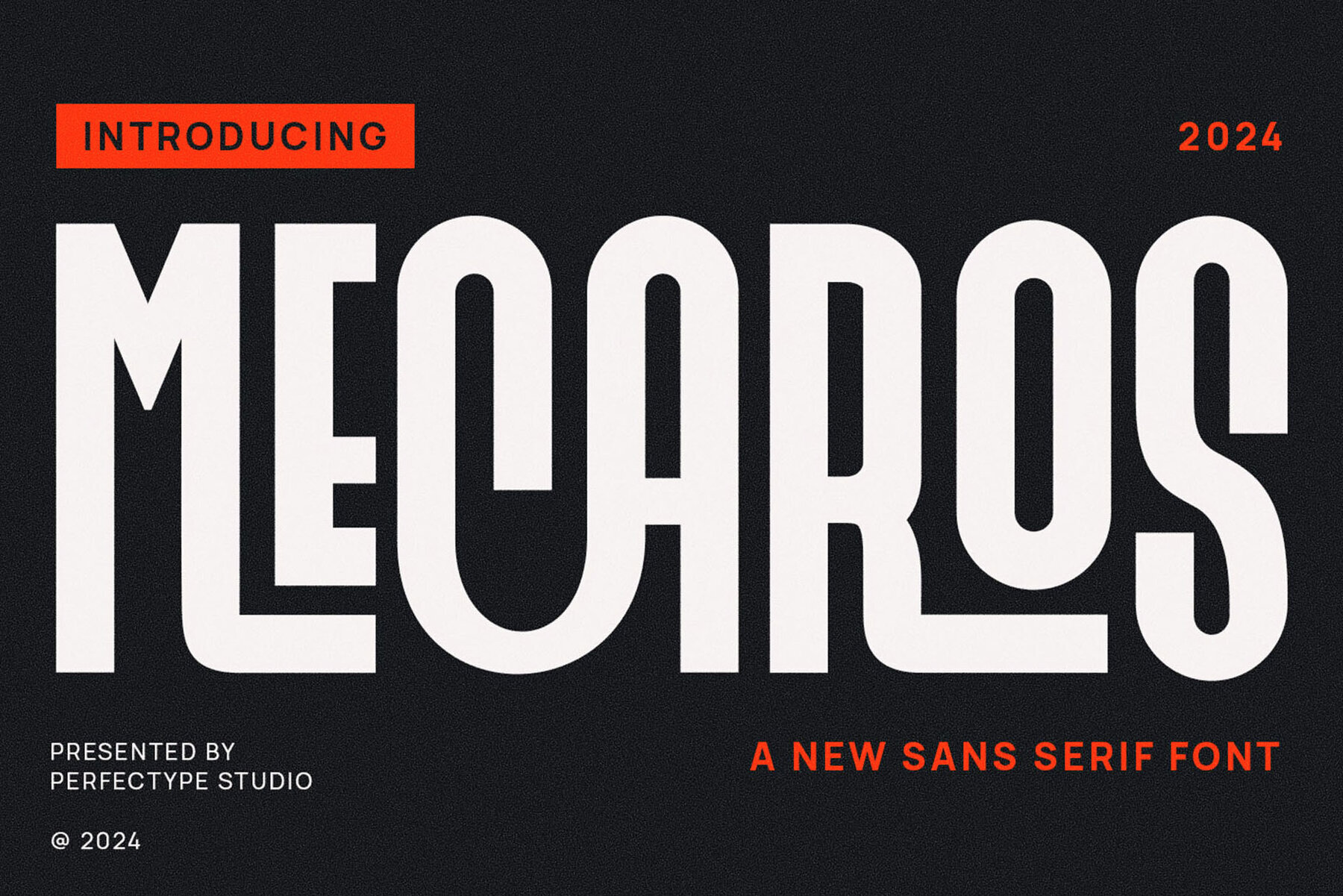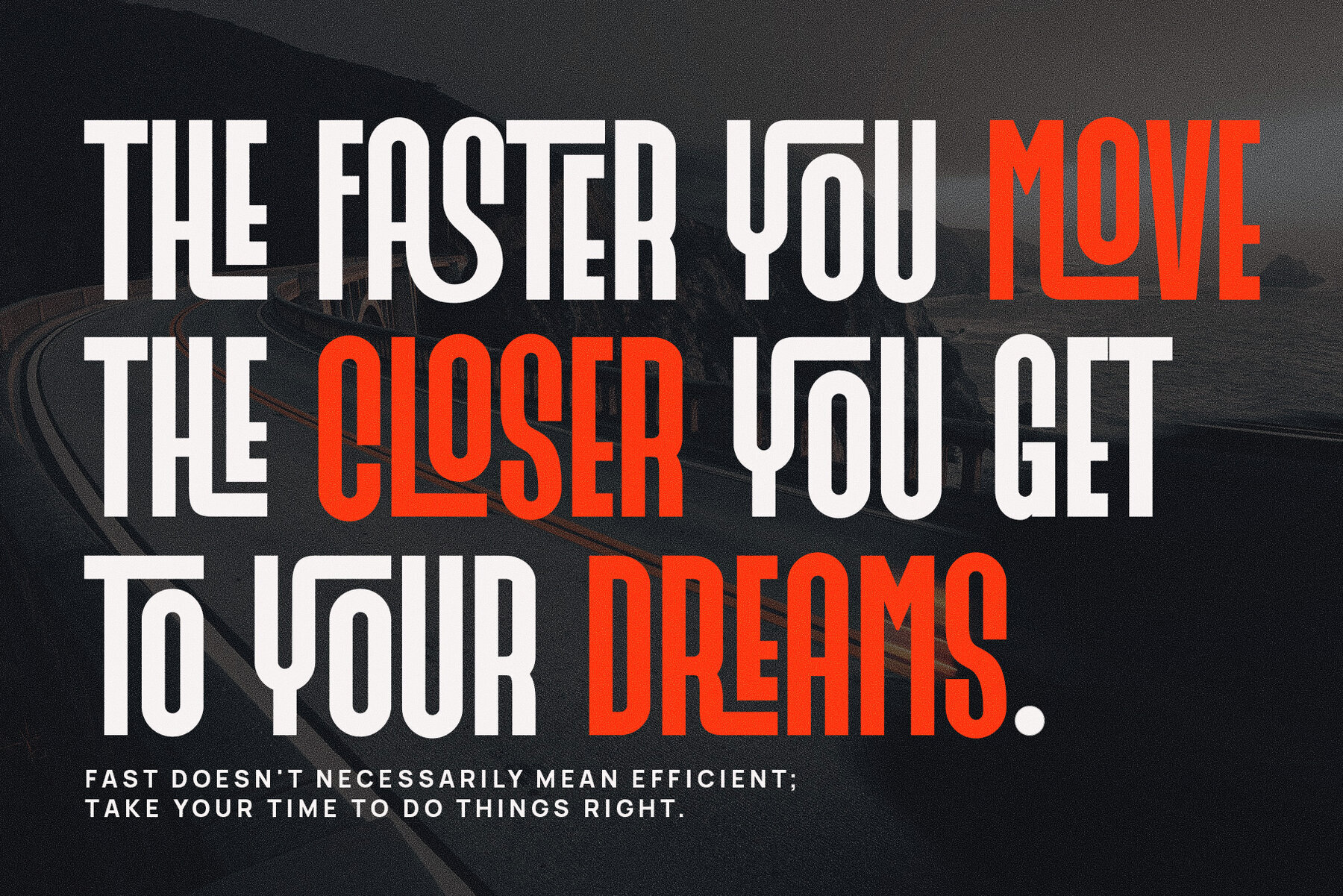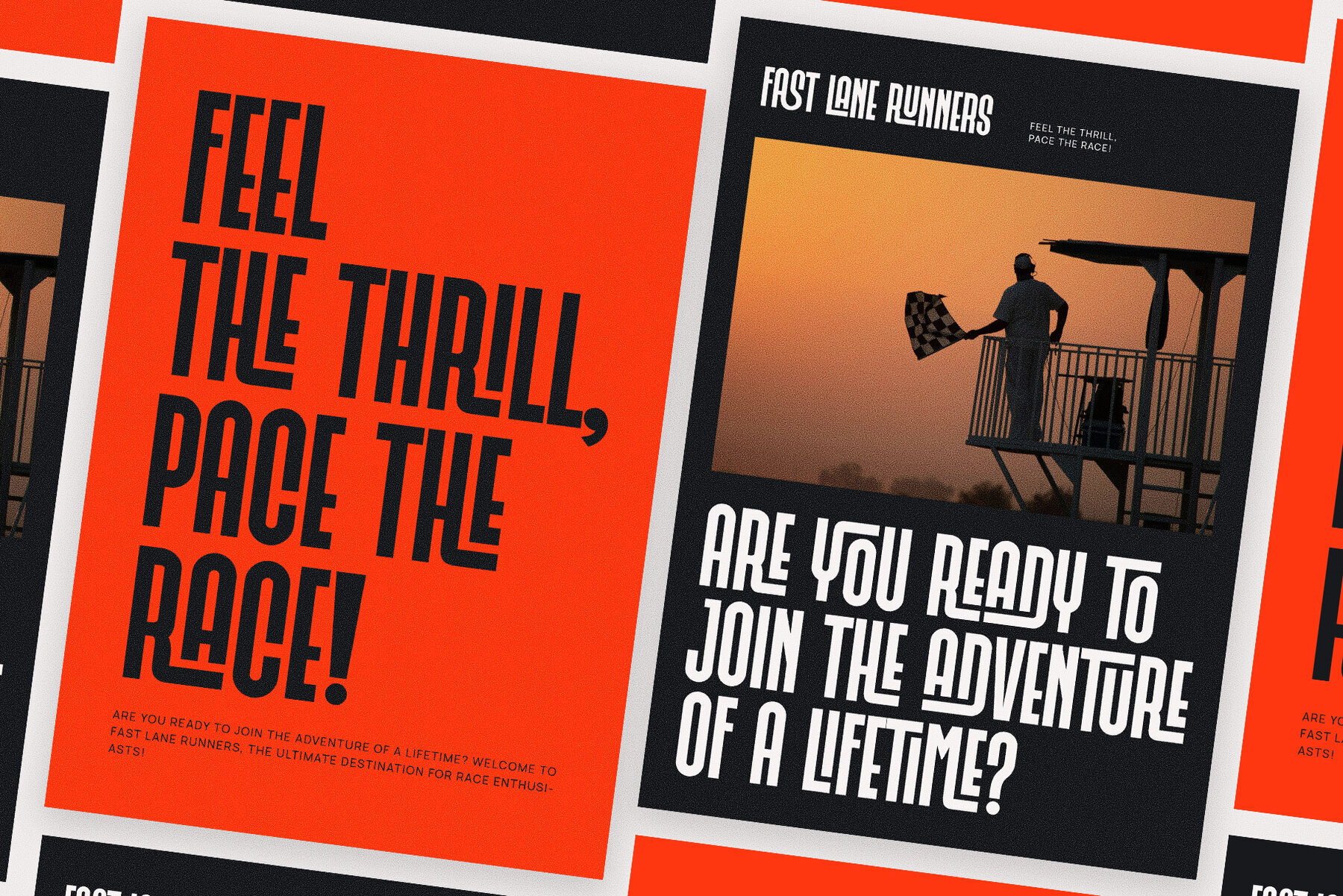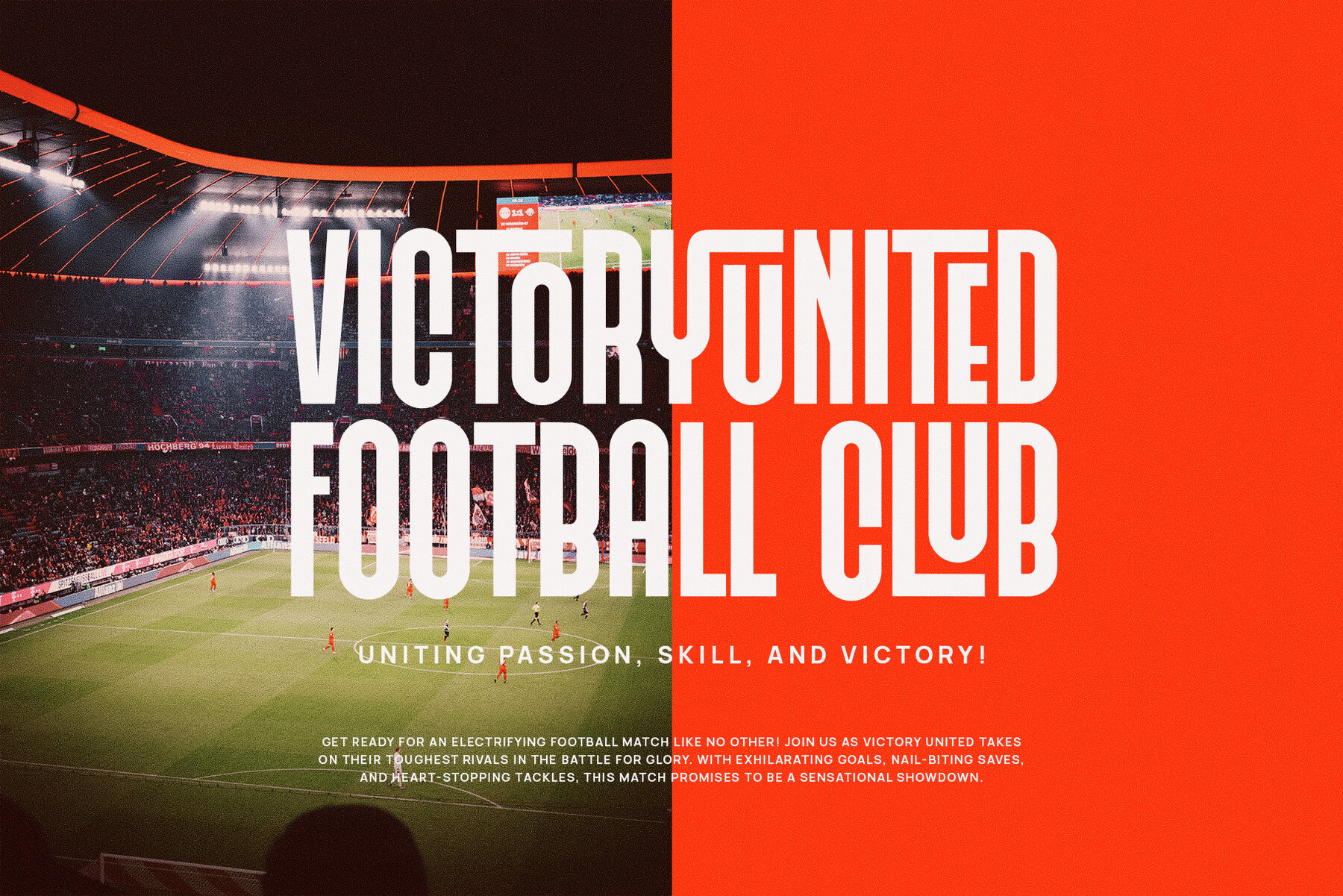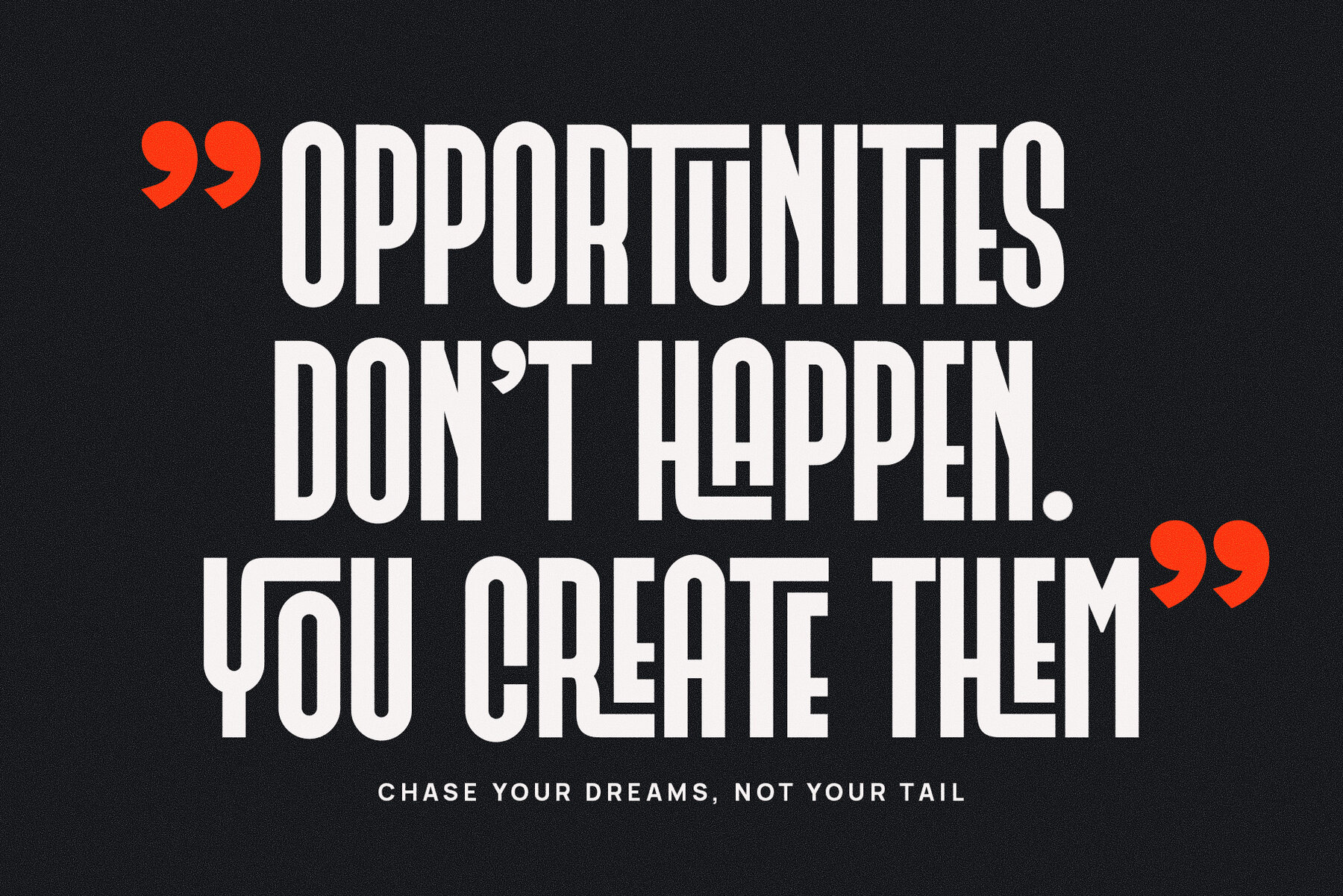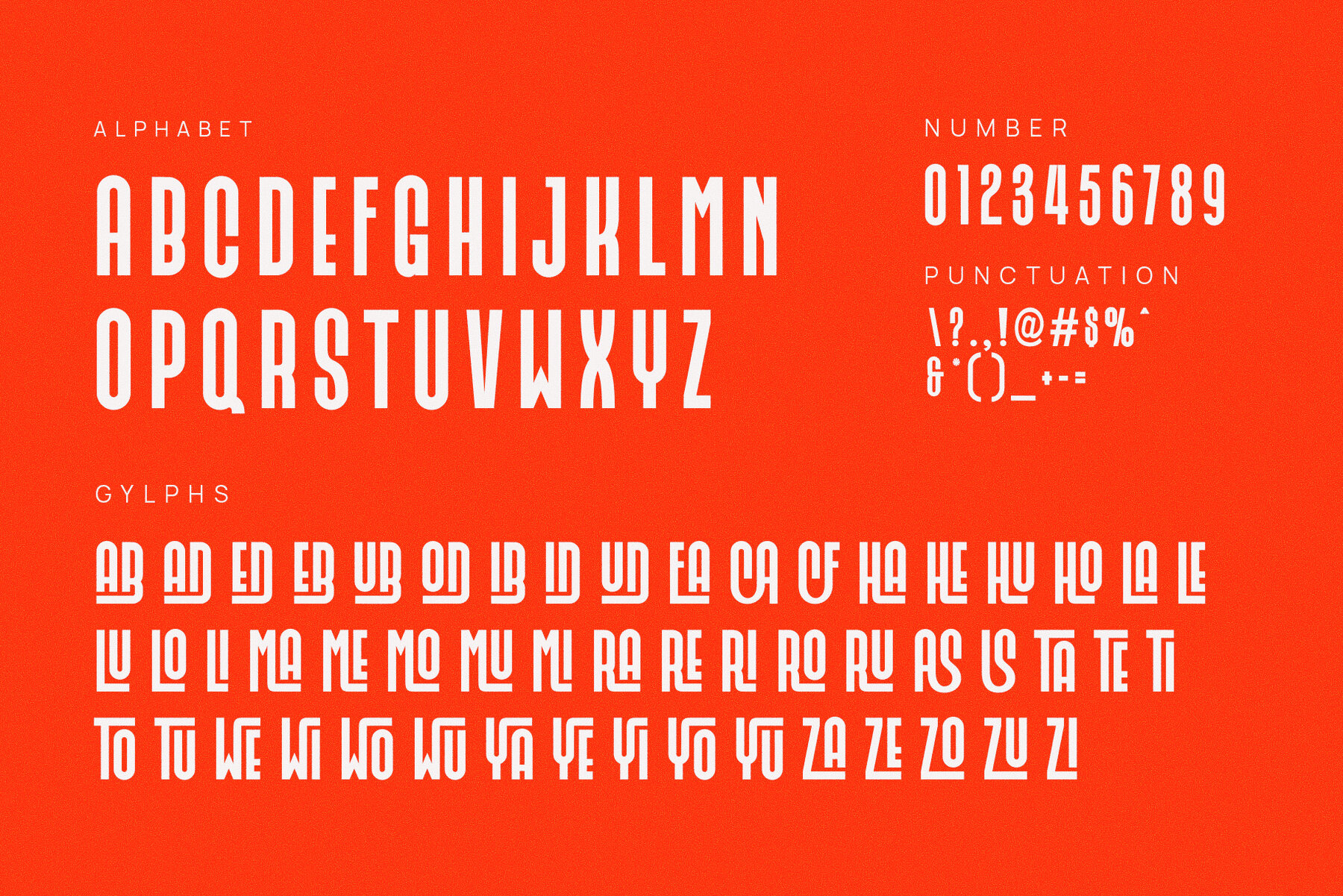
Mecaros Font
Mecaros
Mecaros Modern Ligature Sans Serif embodies modern sophistication and strength with precision-crafted design. This typeface seamlessly balances sleek minimalism and dynamic fluidity, setting itself apart with distinctive ligatures that create organic, artistic connections. Its combination of smooth geometric forms and thoughtful curves results in a cohesive, yet sharp aesthetic. Ideal for branding, logos, and layouts, Mecaros speaks with authority while maintaining openness and accessibility. It suits premium product packaging, high-end magazine layouts, and cutting-edge advertisements, ensuring every word exudes refinement and strength.
With a versatile character set, Mecaros adapts across various digital and print platforms. Its unique ligatures introduce a creative twist, enhancing visual appeal and making text feel tailor-made. The font’s clean, sharp lines project confidence, while the fluid ligatures add a touch of artistry often missing in typical sans serifs. Designed for forward-thinking brands and projects, Mecaros leaves a lasting impression — unmistakably modern, undeniably bold, and infinitely adaptable. Perfect for creative endeavors that require a font as impactful as the messages they convey.